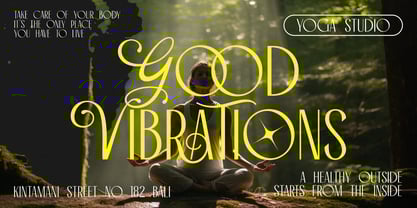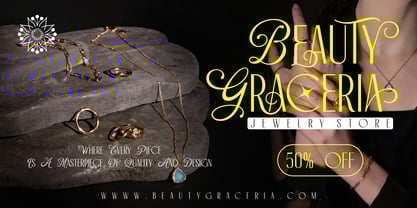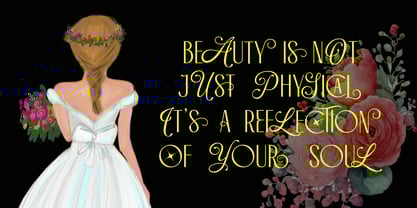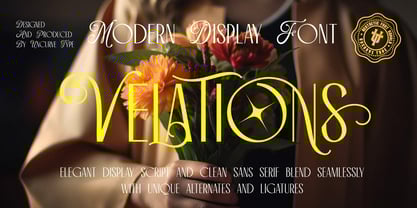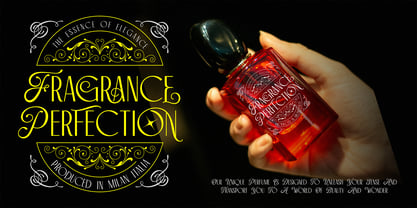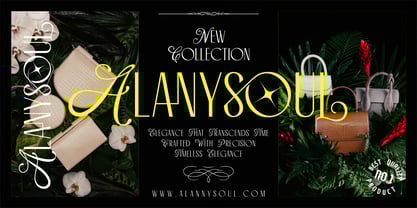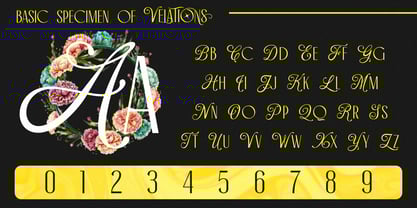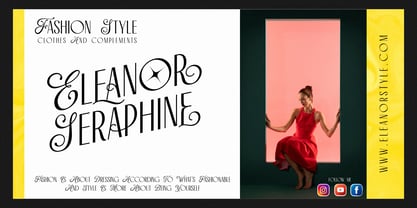
Velations
by Uncurve
The Velations Font Family was designed by Ferry Septian and published by Uncurve. Velations contains 1 styles. More about this family
Velations is a stylish and unique display font that beautifully combines script-style uppercase letters with clean sans-serif lowercase letters. Featuring a selection of alternate characters and ligatures, Velations offers endless creative possibilities to make your designs look effortlessly elegant and modern. Perfect for projects that demand a beautiful, feminine, and sophisticated touch, Velations is ideal for branding, postcards, greeting cards, product labels, wedding invitations, fashion, magazines, book covers, jewelry packaging, quotes, perfume branding, social media posts, and more. This font adds a chic and timeless look to any design, making it stand out with style and grace.
Based in the bustling city of Bandung, West Java, Indonesia, Uncurve represents a dedication to crafting typefaces that are both artistic and functional. Each design is a testament to Ferry’s vision of blending creativity and precision, offering fonts that cater to a wide variety of design needs. Since its inception, Uncurve has grown into a recognized name in the world of type design, producing unique and high-quality fonts that resonate with designers and creatives worldwide. It’s a story of passion, learning, and the drive to create something meaningful in the world of typography.